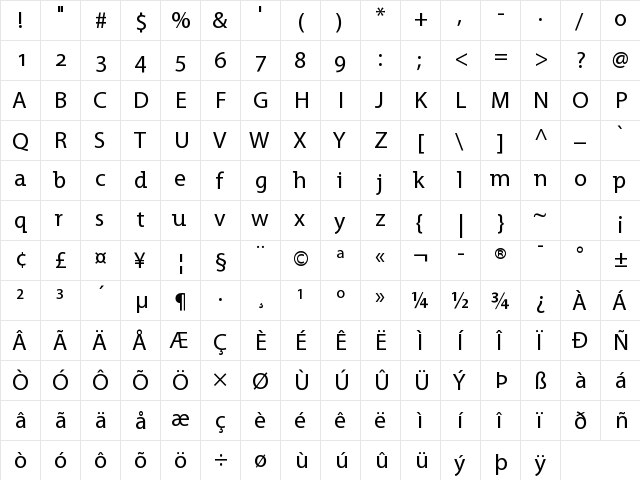
Grandesign Neue Roman Regular
Design Context for Grandesign Neue Roman Typeface
Grandesign Neue Roman offers clean, dependable letterforms without strong stylistic allegiance, making it a practical choice for designers who need flexibility.
Pro Tip: Pair Grandesign Neue Roman with a font of contrasting weight or personality to build a more expressive typographic hierarchy.